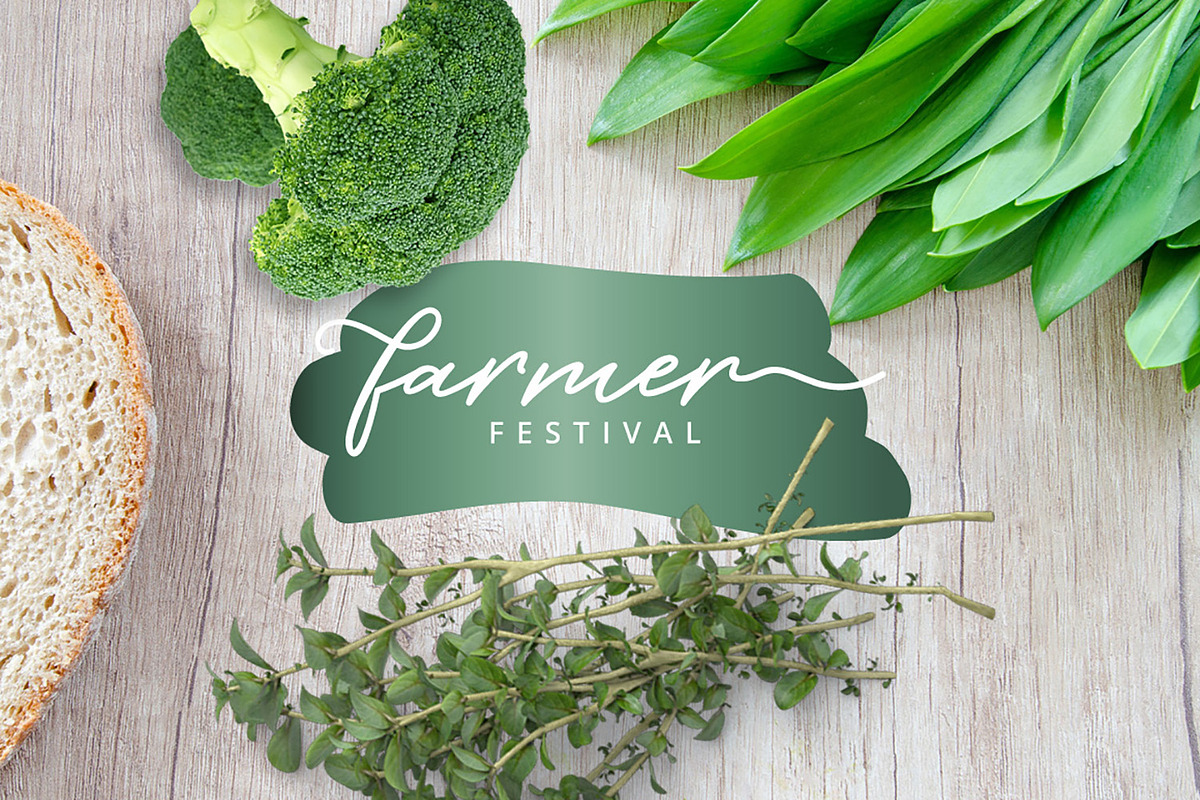
Barbeque Script
Introducing Barbeque Fonts.
Each letter has been attentively written, Perfect for adding a elegant and unique touch to your lettering projects and branding, Barbeque Fonts has that special nuance.
Barbeque Fonts is a handrawn calligraphy typeface that features a varying baseline, modern and elegant touch. Can be used for various purposes, such as headings, signature, logos, wedding invitation, t-shirt, letterhead, signage, lable, news, posters, badges etc. Most importantly, this font is very functional.